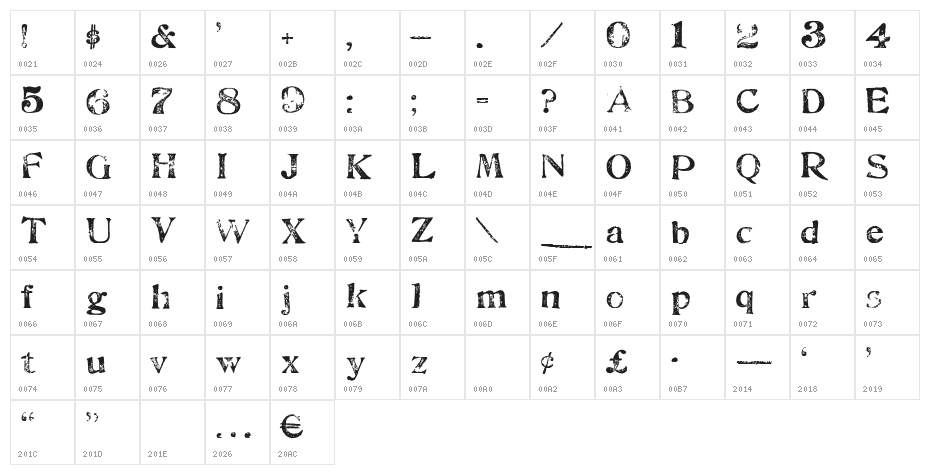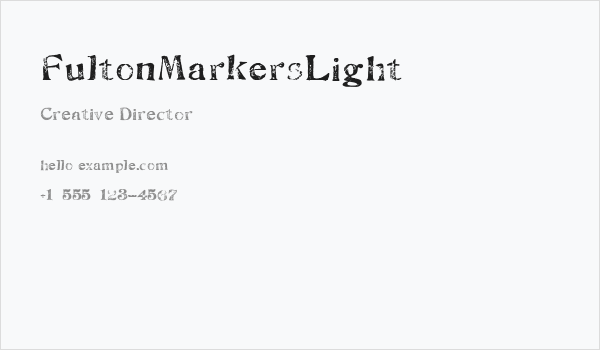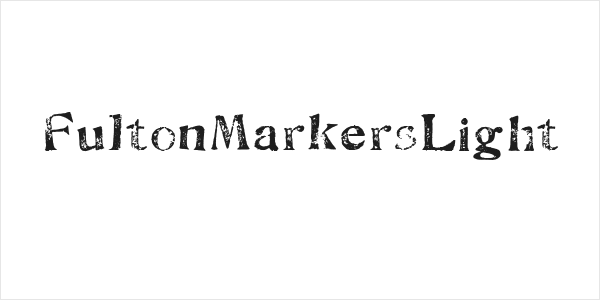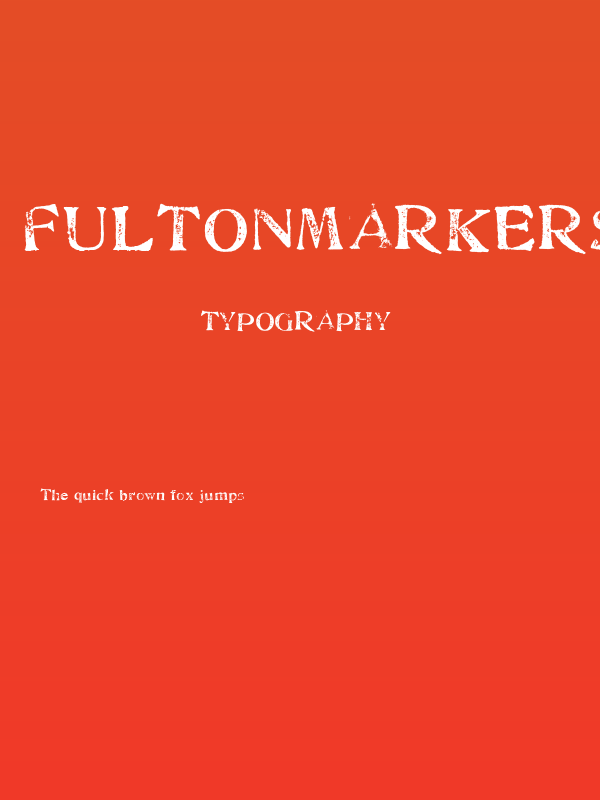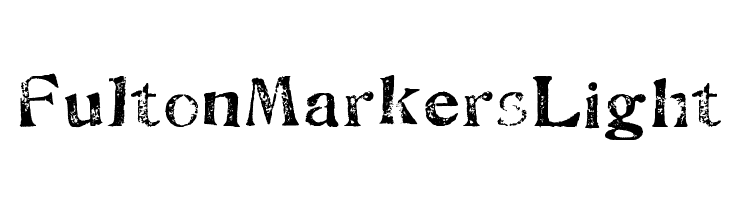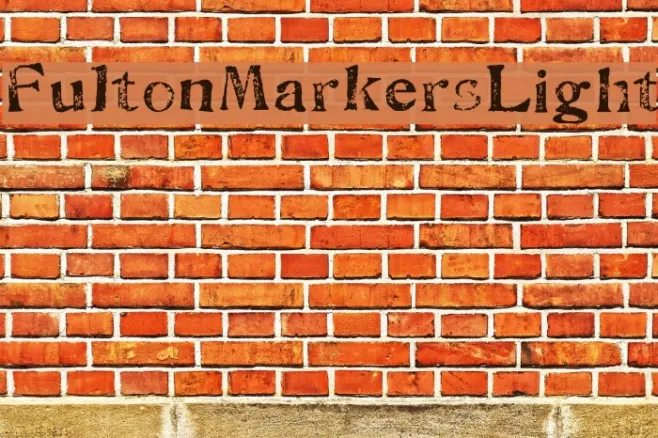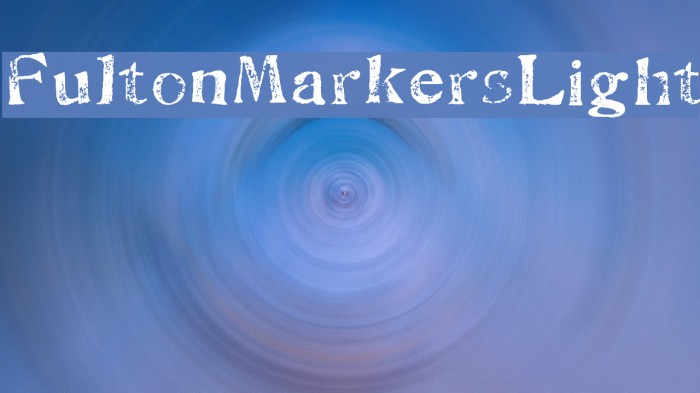
FultonMarkersLight Font
FultonMarkersLight Description
This font exhibits a distressed, grunge style with a textured appearance that gives it a worn, vintage feel. The characters have a serif structure, adding a classic touch to the otherwise rugged design. Each letter appears as if it has been stamped or printed with a slightly uneven ink distribution, contributing to its unique character. The uppercase and lowercase letters maintain consistent styling, with numerals and special characters following the same aesthetic. This font's distinctive look makes it ideal for projects that require a bold, eye-catching statement.
| Proposed Projects | Ideal for poster designs, album covers, vintage-themed branding, and any project requiring a bold, textured look. |